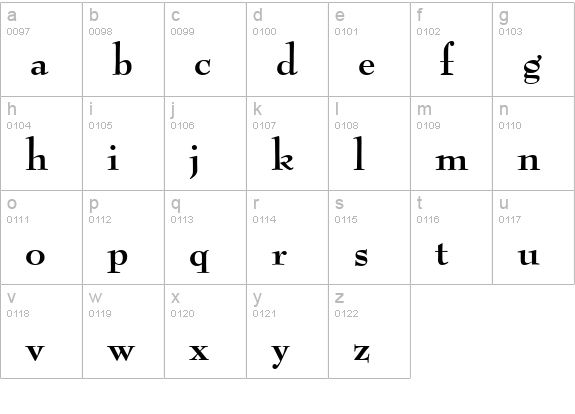
BernhardModern-Bold Font Details
BernhardModern-Bold is a strong, high-contrast variant in the BernhardModern typeface family \xE2\x80\x94 well suited to headlines, attention-grabbing titles, and strong calls-to-action.
BernhardModern-Bold font is a bold and striking typeface that exudes confidence and modernity. Its clean lines and strong presence make it perfect for headlines, titles, and other display purposes. The font features a unique blend of classic elegance and contemporary style, making it versatile for a wide range of design projects. What sets BernhardModern-Bold font apart is that it is available for free download at FontsMarket.com, making it easily accessible for designers, creatives, and anyone in need of a bold and impactful typeface. With its timeless appeal and bold design, BernhardModern-Bold font is sure to make a statement in any project it is used in.